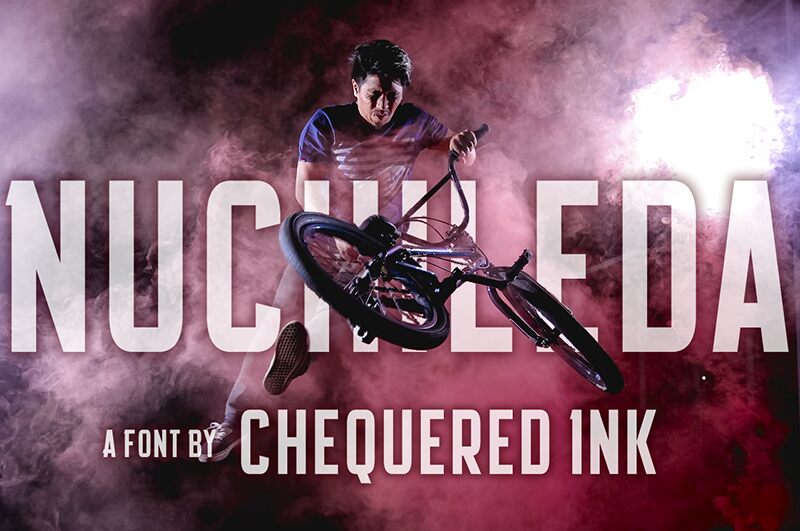
Nuchileda
Nuchileda font by Chequered Ink is a free techno display font with condensed, geometric letters. This futuristic typeface comes in a minimalistic design with strong clean lines and shapes that combine to showcase a modern industrial style.
Download and use the ultra-modern Nuchileda in posters, flyers, cards, ads, banners, titles, headlines magazines and newspapers covers. The font will also work for movie titles and TV series intros along with many other creative digital media purposes. Enjoy Nuchileda writing your blogs too!